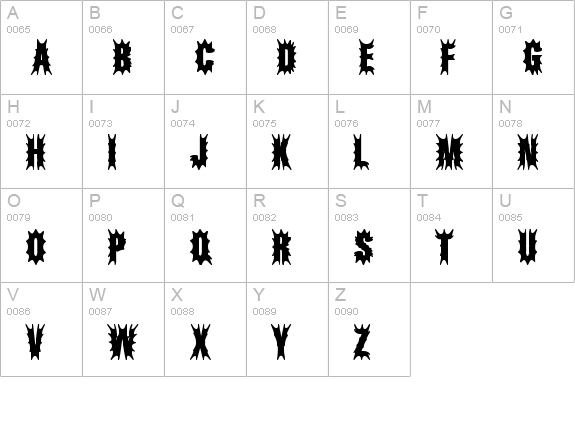
Aftermath (BRK) Font Details
Aftermath (BRK) is a bold and striking font that exudes a powerful and impactful presence. Its sharp edges and clean lines make it ideal for projects that require a modern and edgy look. The font's unique design sets it apart from traditional typefaces, making it a standout choice for headlines, posters, and branding materials. What makes Aftermath (BRK) even more appealing is that it is completely free to download. No need to worry about licensing fees or restrictions – this font is available for anyone to use at no cost. Simply visit FontsMarket.com to access this versatile typeface and unleash its potential in your creative projects. Let Aftermath (BRK) be the bold statement your designs need, without breaking the bank.